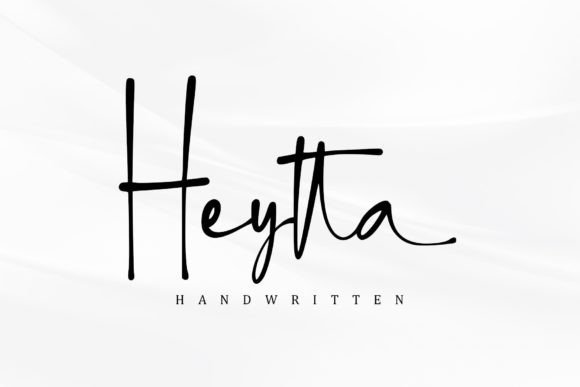
Prepare to fall head over heels for Heytta, a captivating script font that oozes sophistication and charm. With its graceful strokes and enchanting flow, Heytta is your secret weapon for captivating audiences and crafting designs that leave a lasting impression.
Journey into the realm of limitless creativity with Heytta, a font that empowers you to express yourself with unparalleled elegance. Whether you're a seasoned designer or just starting your creative expedition, Heytta is your companion on this extraordinary adventure.
Picture this: you're crafting an awe-inspiring invitation that invites guests into a world of enchantment. Heytta's delicate curves and enchanting swashes dance across the page, promising an unforgettable experience. Or, envision your brand's logo adorned with Heytta's graceful strokes, exuding an aura of timeless sophistication.
Heytta's versatility knows no bounds. Embark on a creative odyssey where you'll effortlessly design social media posts that captivate followers, watermarks that leave an indelible mark, and product packaging that commands attention on shelves. Heytta is your secret weapon for captivating audiences and crafting designs that leave a lasting impression.
But what sets Heytta apart is not just its versatility, but its unparalleled ease of use. With its PUA encoding, unleashing Heytta's full potential is a breeze. Gain effortless access to every glyph and swash, empowering you to create designs that shimmer with originality and flair.
So, why settle for ordinary when you can embrace the extraordinary? Embark on a creative journey with Heytta, the script font that will transform your designs into masterpieces that capture hearts and ignite imaginations.